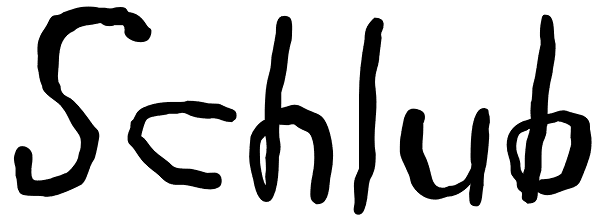
Schlub
Schlub is just plain weird. It looks like it was drawn with the left hand of a right-handed person using a gloppy pen yet remains very legible.
Schlub Font